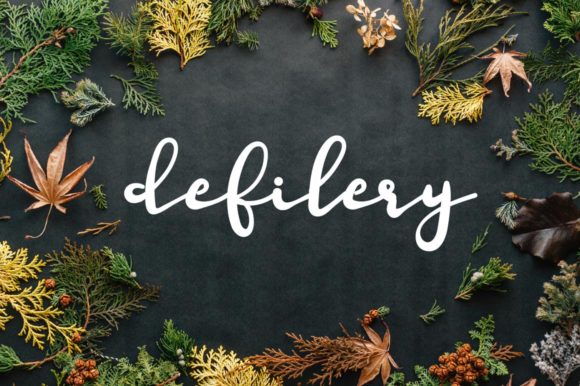
Introducing Defilery Font - The Exquisite Handwritten Masterpiece to Transform Your Designs
In a world of digital monotony, where fonts often blend together, Defilery Font emerges as a captivating script font, a breath of fresh air in the realm of typography. Created by the talented Zmapist, Defilery is not just a font; it's an artistic expression, a testament to the power of handwritten beauty.
This elegant and stylish font family is designed to make your creative projects radiate authenticity and distinctiveness. Its graceful curves, delicate strokes, and enchanting flow emulate the artistry of penmanship, evoking a sense of timeless charm and sophistication.
Unleash the Elegance:
With Defilery Font, your designs will transcend the ordinary and embrace a captivating aura of elegance. Its intricate details and sweeping flourishes will elevate your creations, adding a touch of timeless beauty that will leave a lasting impression.
Authenticity at Your Fingertips:
Defilery Font embodies authenticity in every letterform. Its handwritten nature brings a genuine and personal touch to your projects, creating a connection with your audience on an emotional level. This font will add a human touch, making your designs resonate with a sense of warmth and relatability.
Endless Creative Possibilities:
Defilery Font is a versatile masterpiece, adaptable to a myriad of creative endeavors. Whether you're crafting captivating logos, designing exquisite invitations, creating heartfelt greeting cards, or embarking on web design projects, Defilery Font will effortlessly elevate your creations.
Your Designs, Unforgettable:
In a world saturated with visual noise, Defilery Font will make your designs shine brighter than ever before. Its remarkable ability to capture attention and create a lasting impact will ensure that your projects stand out in the digital landscape, leaving an unforgettable mark on your audience.
Defilery Font - The Key to Unlocking Creative Brilliance:
Defilery Font is more than just a font; it's an investment in your creative journey. Its versatility, authenticity, and captivating beauty will empower you to create designs that resonate with your audience, leaving a lasting impression. Embrace the power of Defilery Font and watch your creative visions transform into masterpieces.